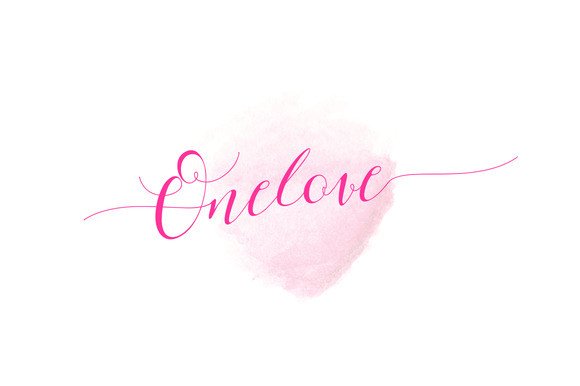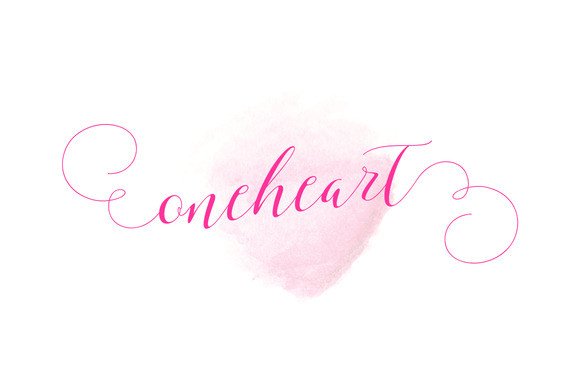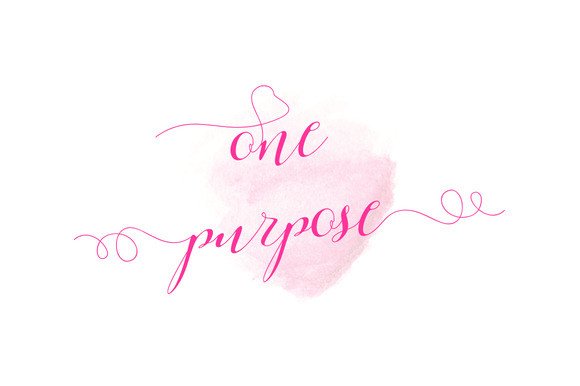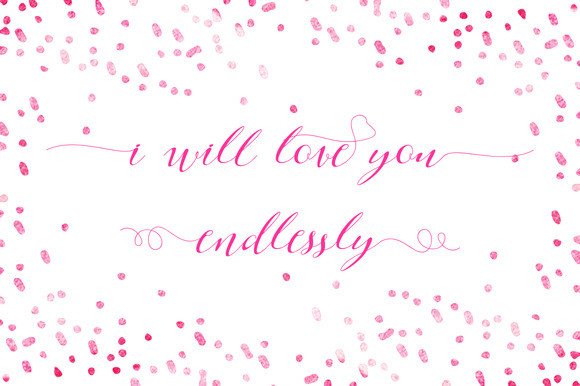
Laurence Font
About Laurence Font
Laurence Script is a stylish handwritten calligraphy typeface. It has dancing baselines and will give your design an classic and elegant touch. It can be used for various purposes such as headings, logos, invitations, t-shirt designs, greeting cards, posters, labels, book covers, brochures and much more!